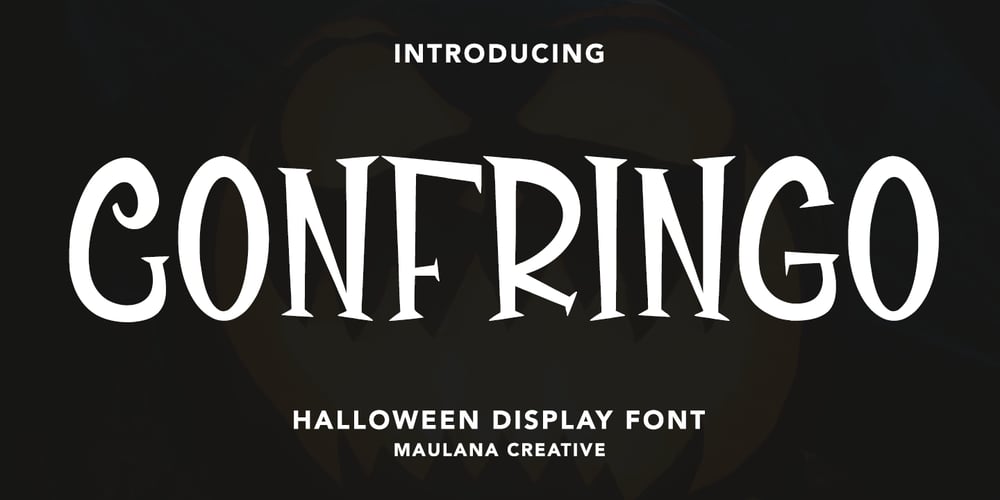
MC Confringo Font Family was designed by Gilang Maulana and published by Maulana Creative. MC Confringo contains 1 styles and family package options. Confringo halloween display font. Bold stroke, fun character with a bit of ligatures and alternates. To give you an extra creative work. Confringo font support multilingual more than 100+ language. This font is good for logo design, Social media, Movie Titles, Books Titles, a short text even a long text letter and good for your secondary text font with script or serif. Make a stunning work with Confringo halloween display font.Cheers,Maulana Creative